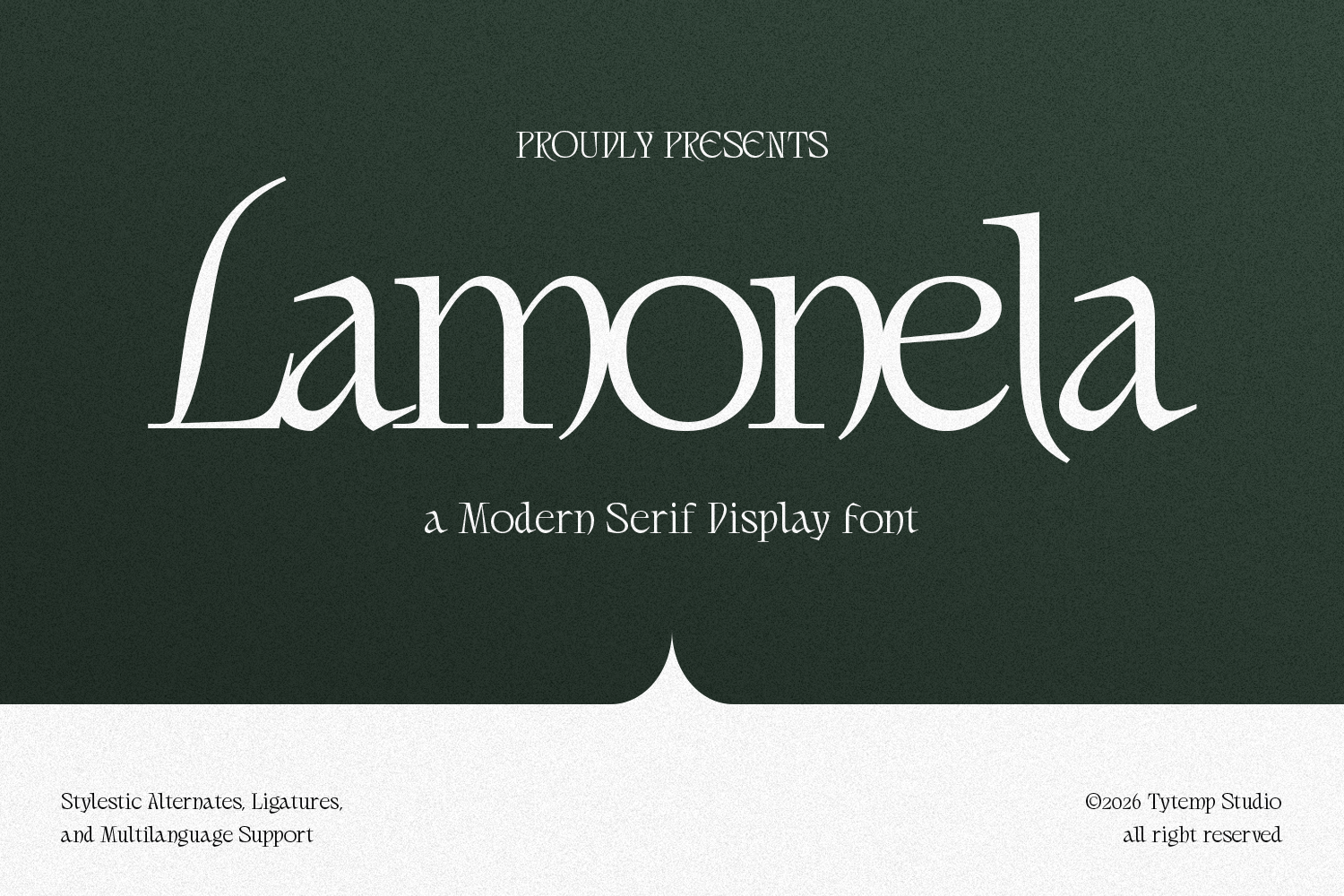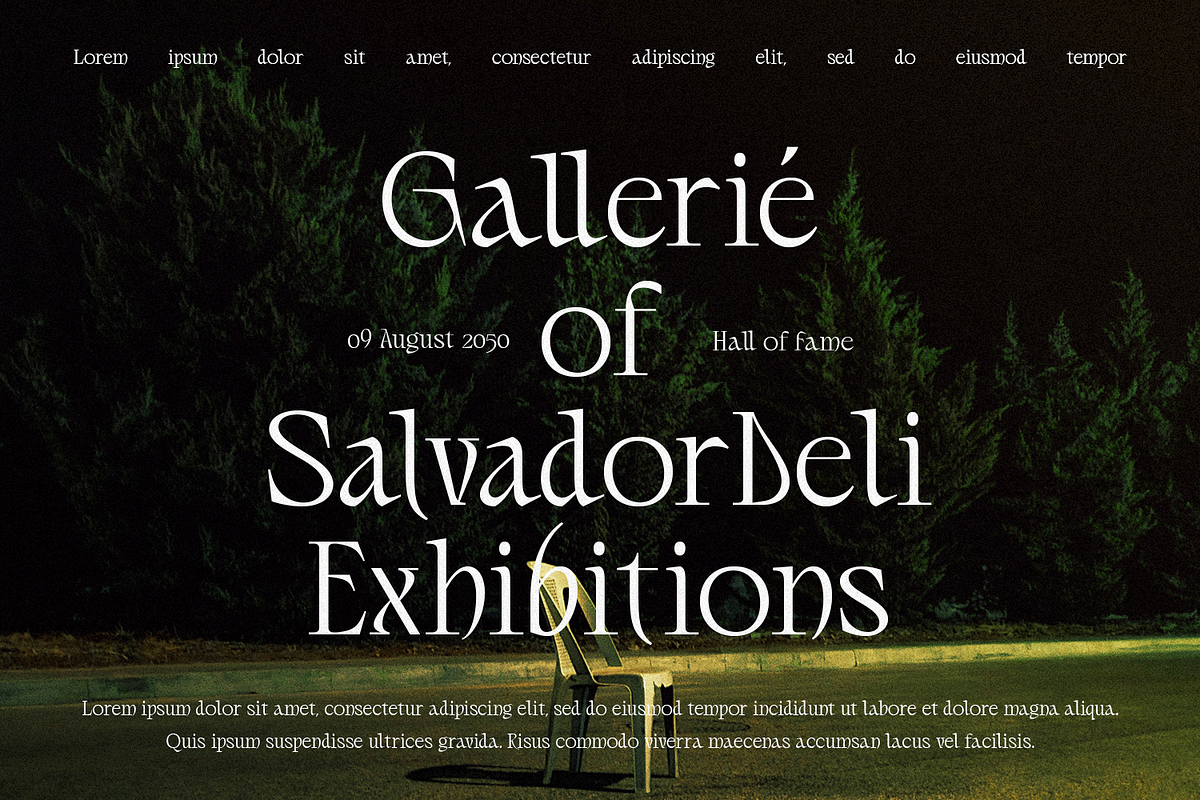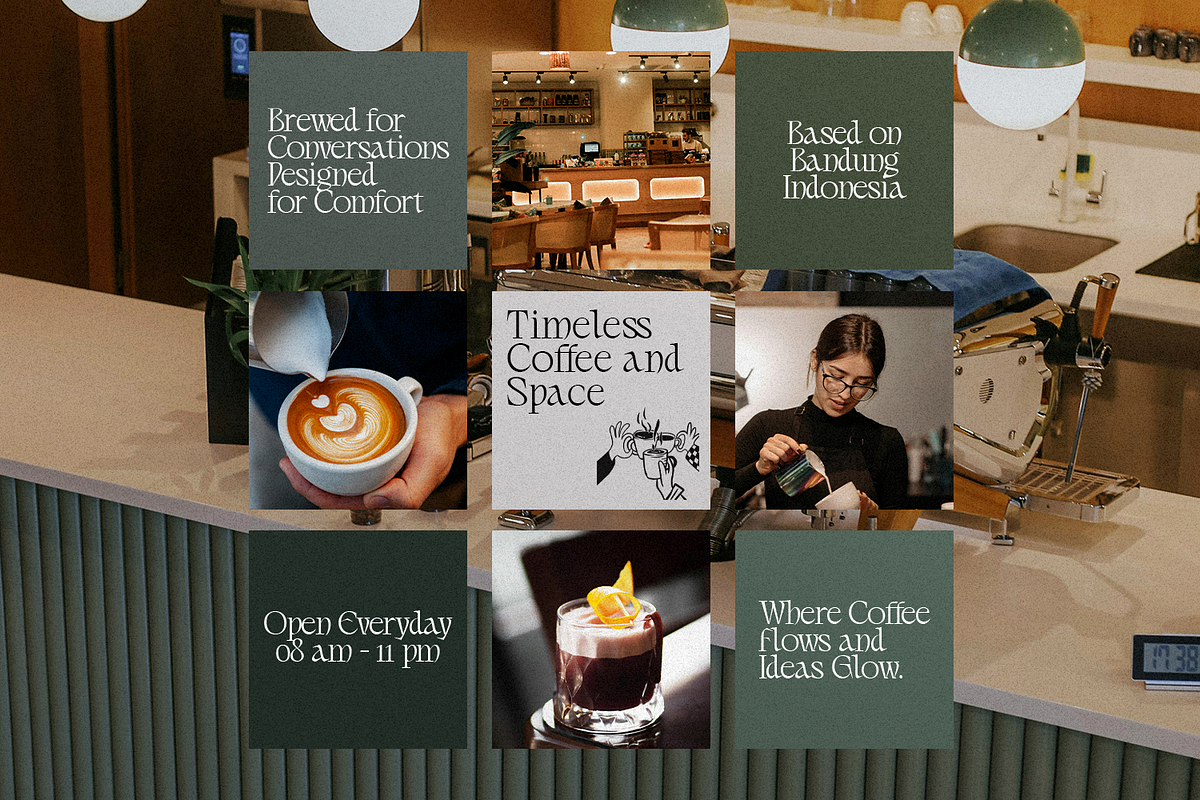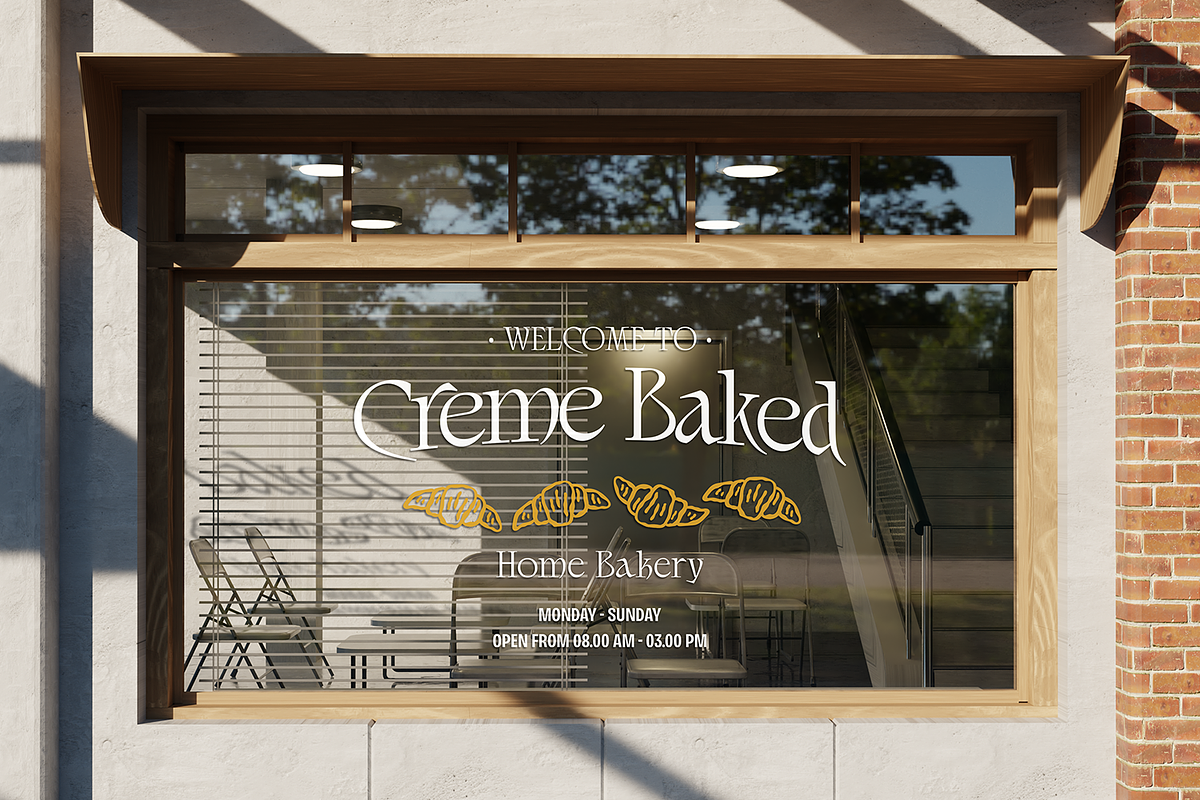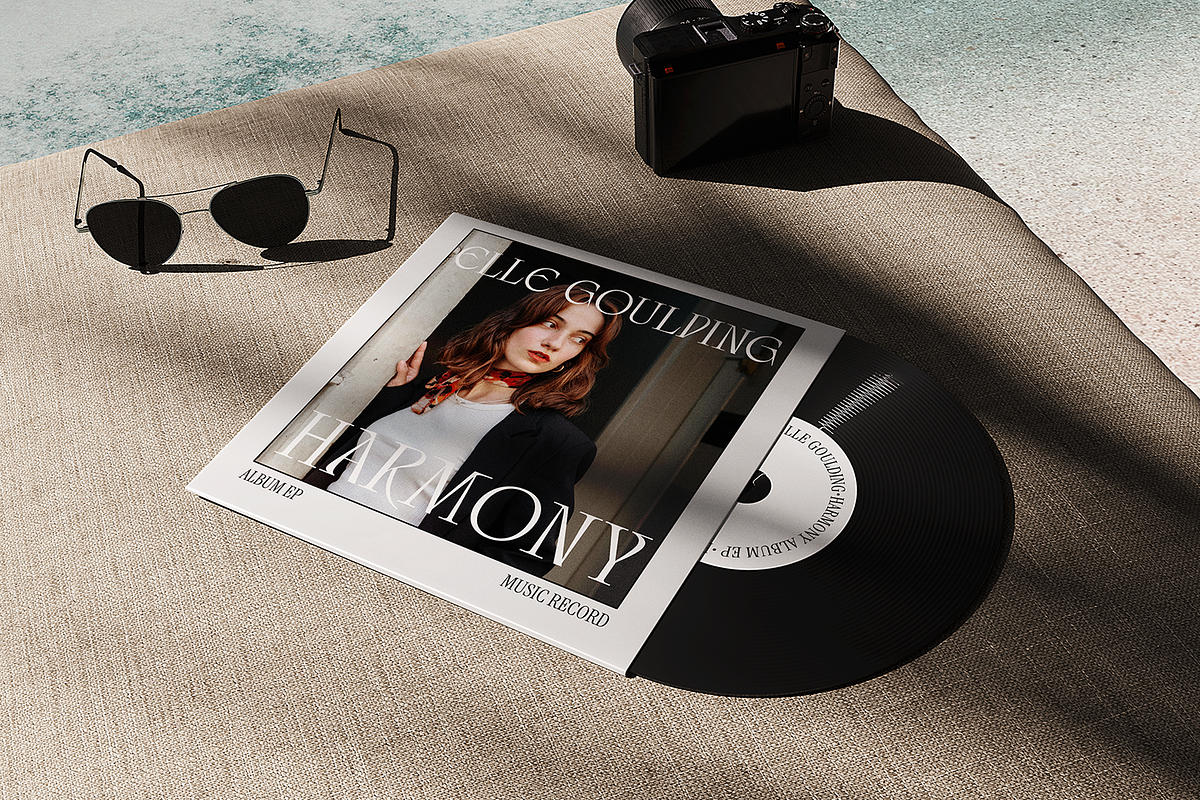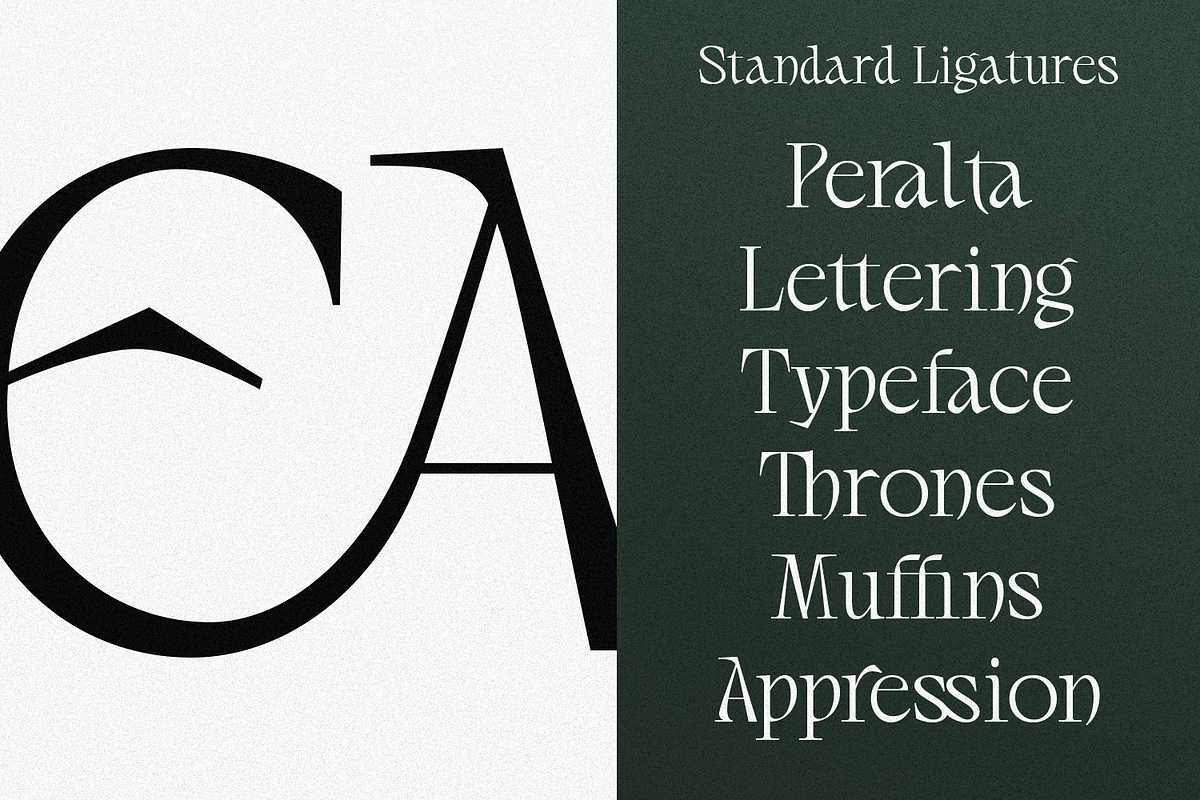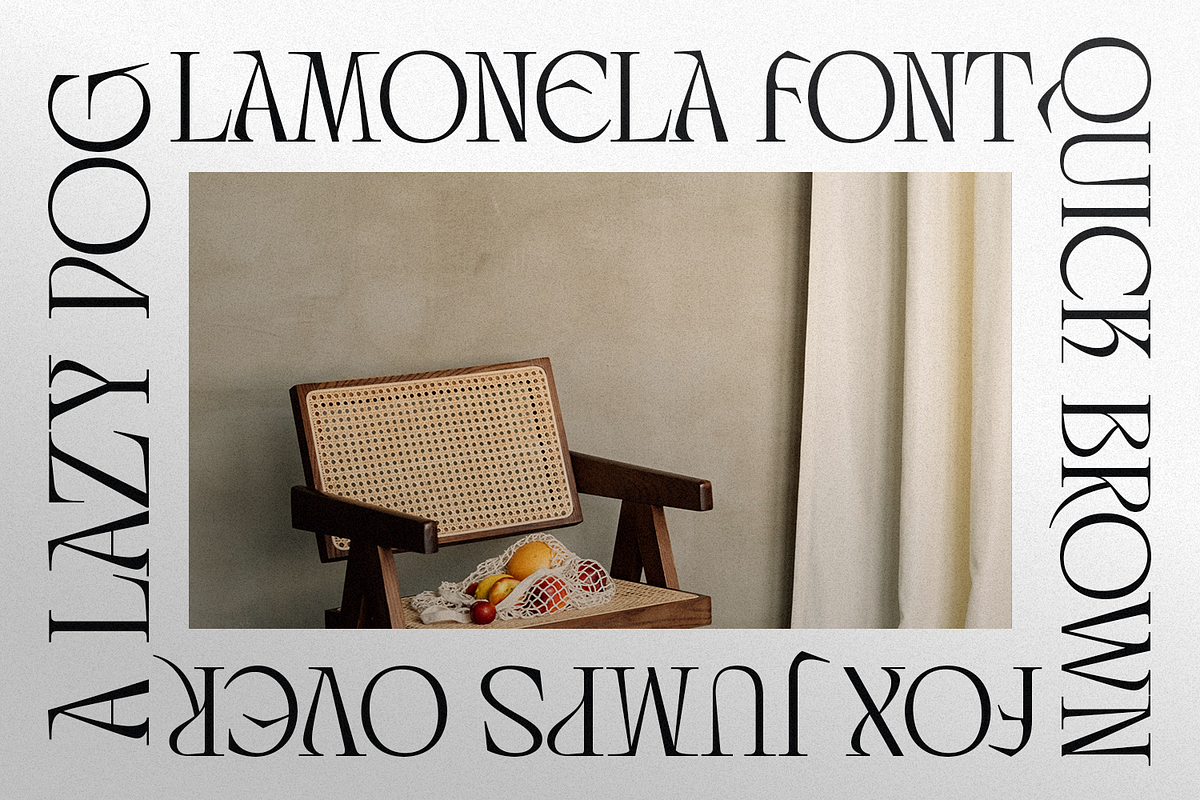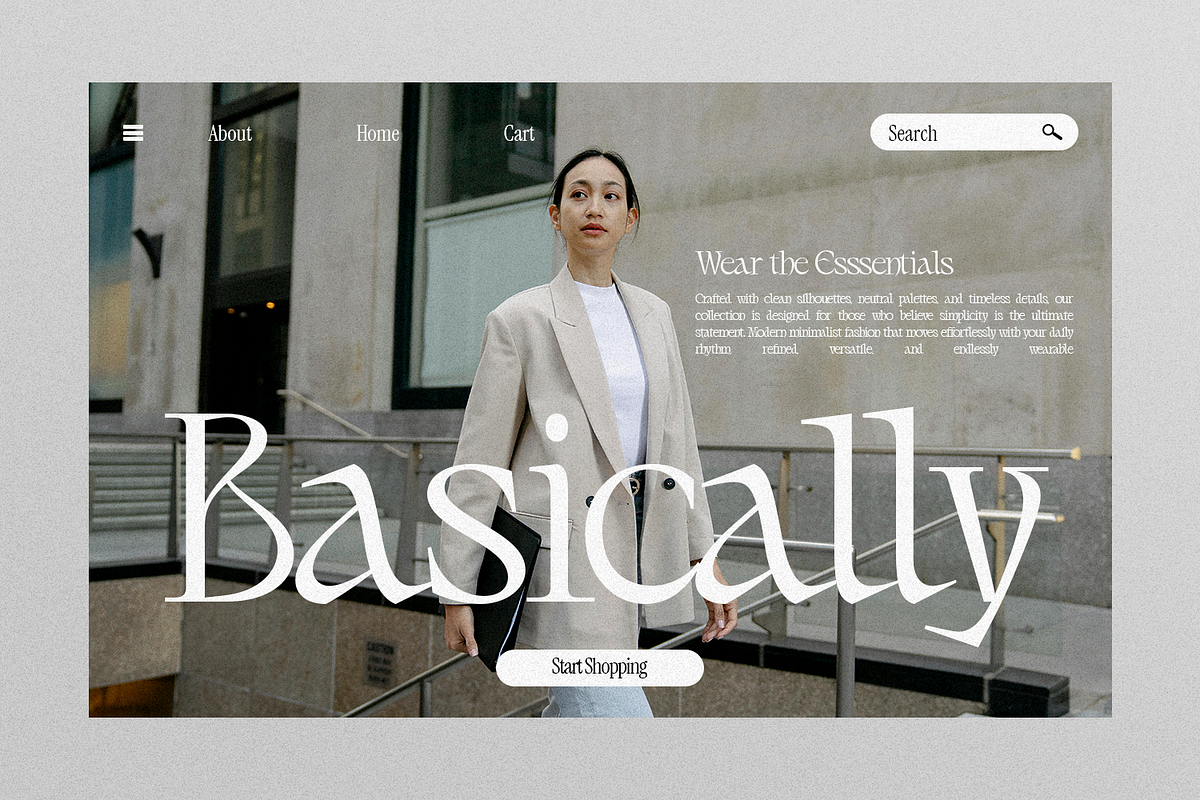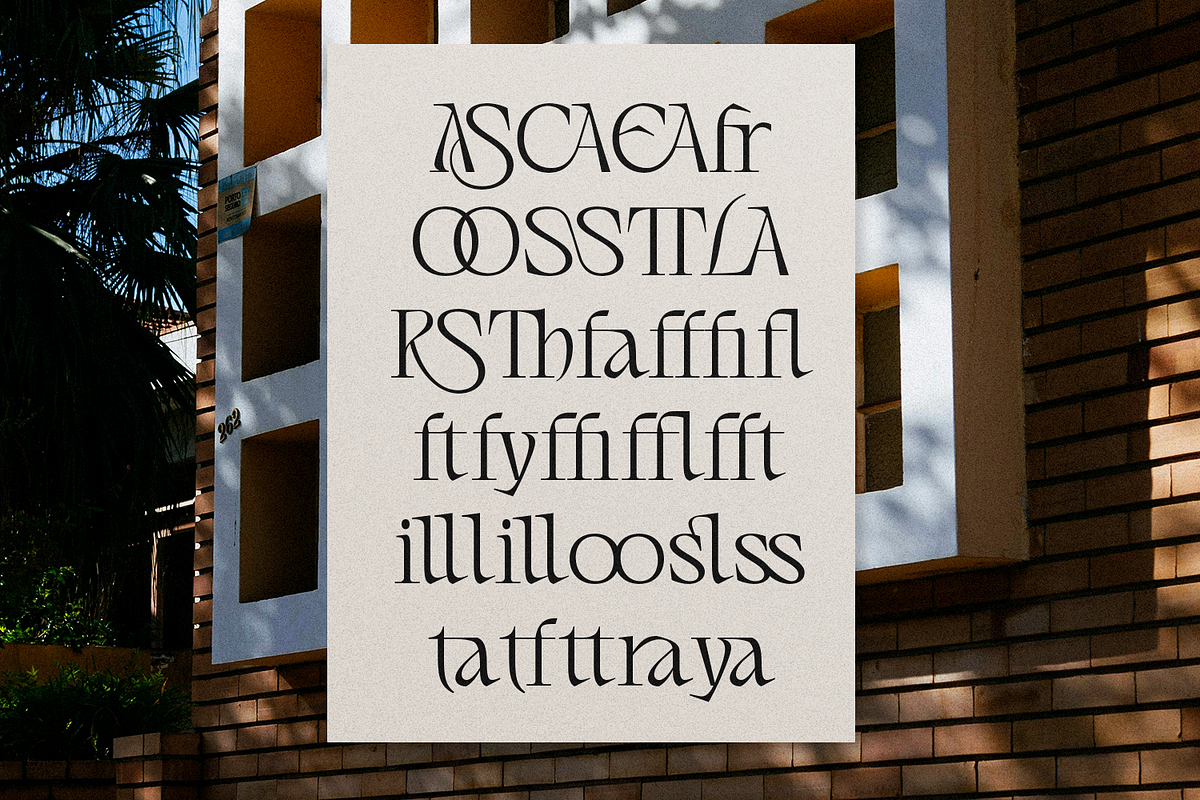
Lamonela - Serif Display Font
Lamonela is a modern serif display font that blends timeless elegance with contemporary sophistication. Featuring high contrast strokes, graceful curves, and refined ligatures, this typeface delivers a luxurious and artistic visual identity. Its stylish letterforms create a romantic yet editorial feel, making it perfect for branding, fashion campaigns, beauty products, wedding invitations, magazine headlines, and premium logo designs. The font’s delicate details and minimalist aesthetic give it a classy, feminine, and high-end appearance while maintaining excellent readability for display purposes.
OpenType features such as ligatures and alternates